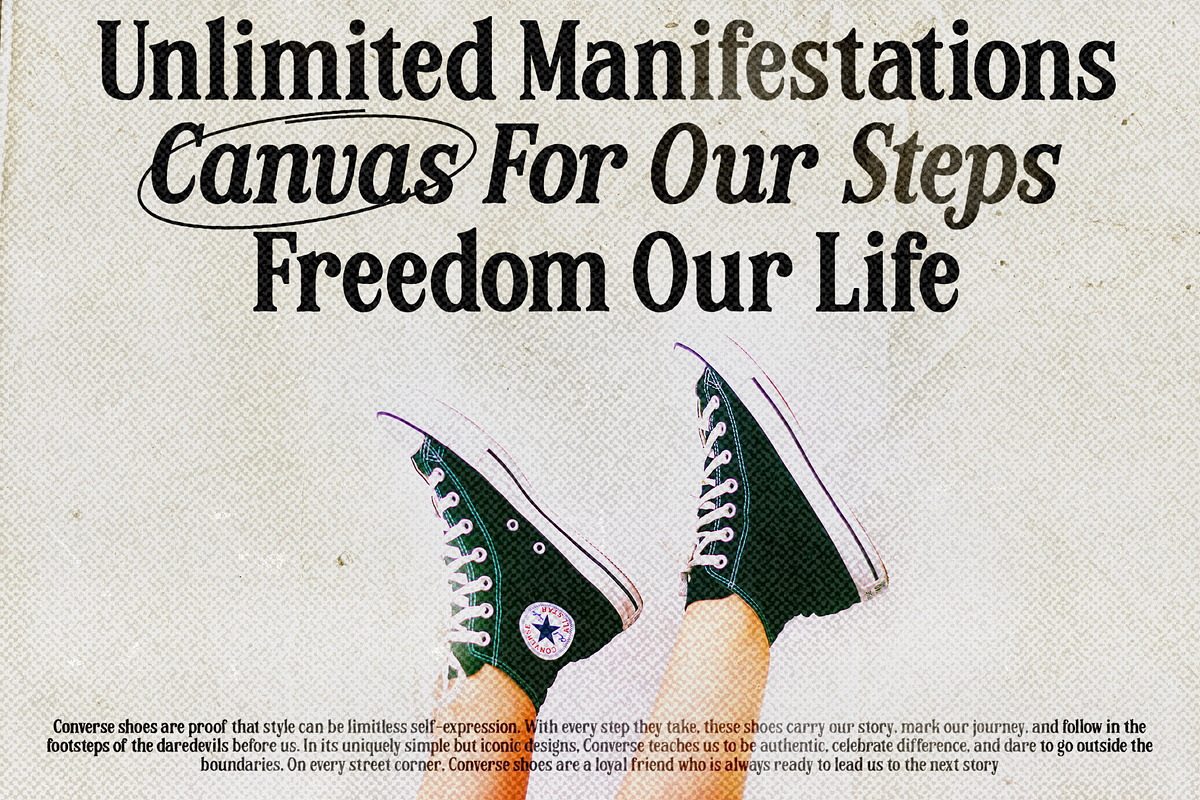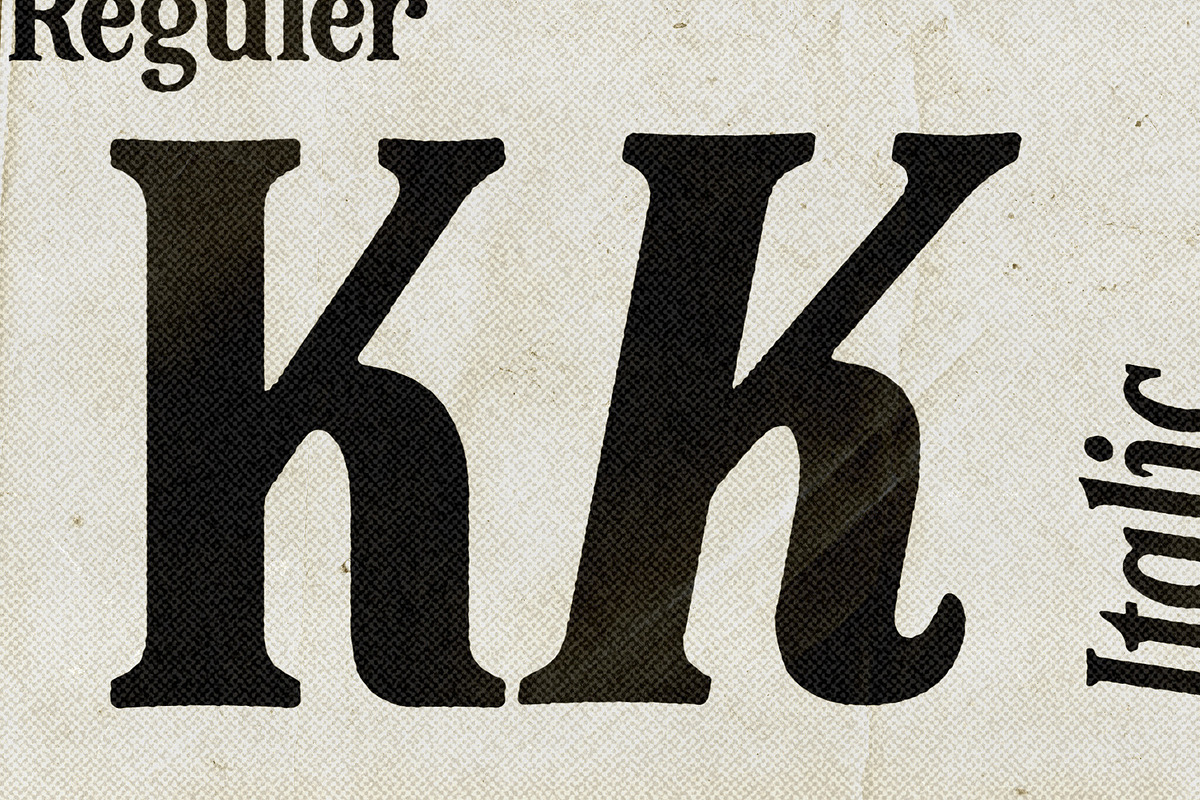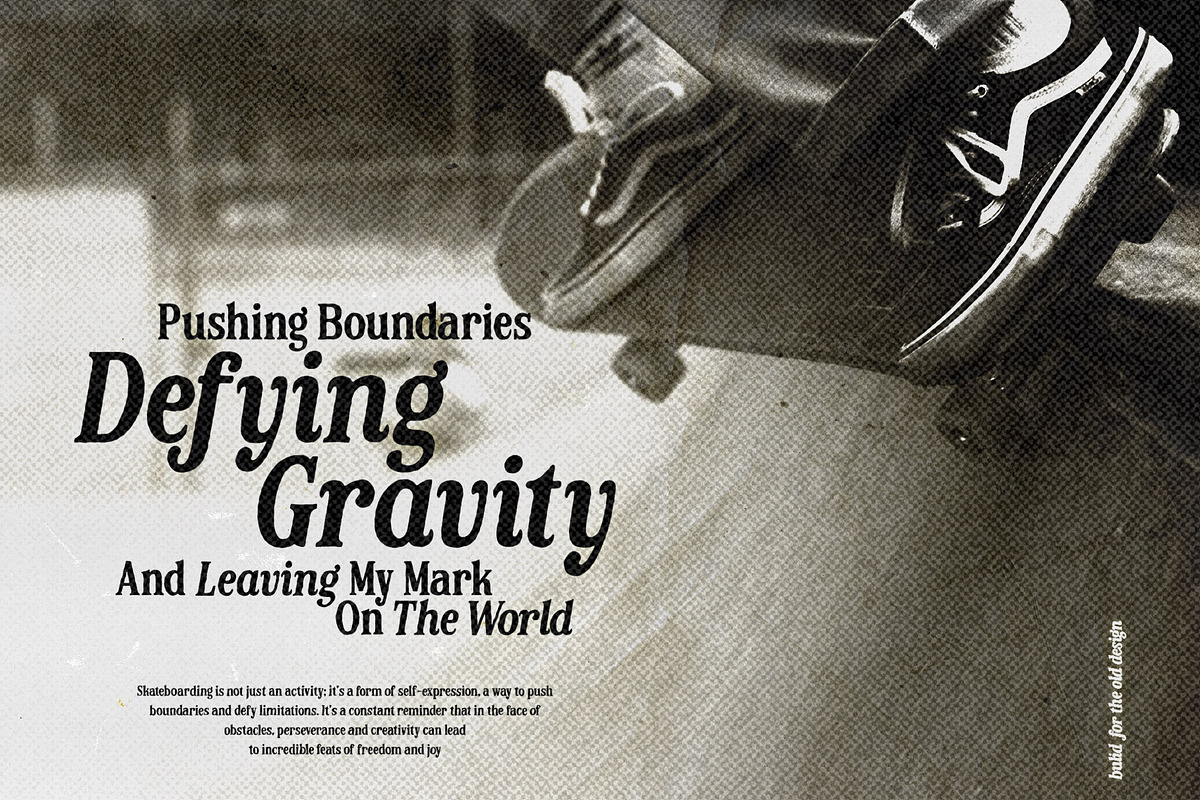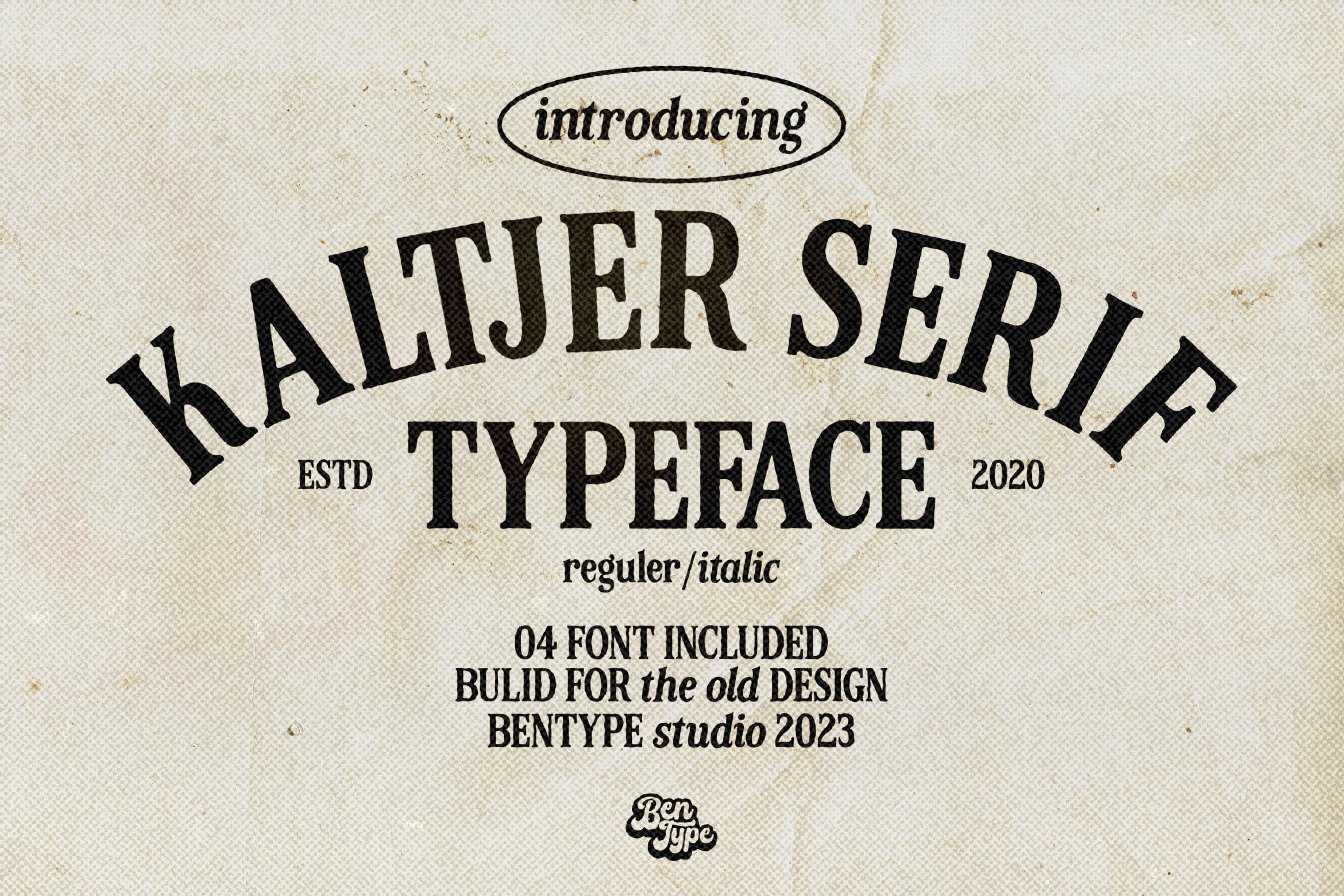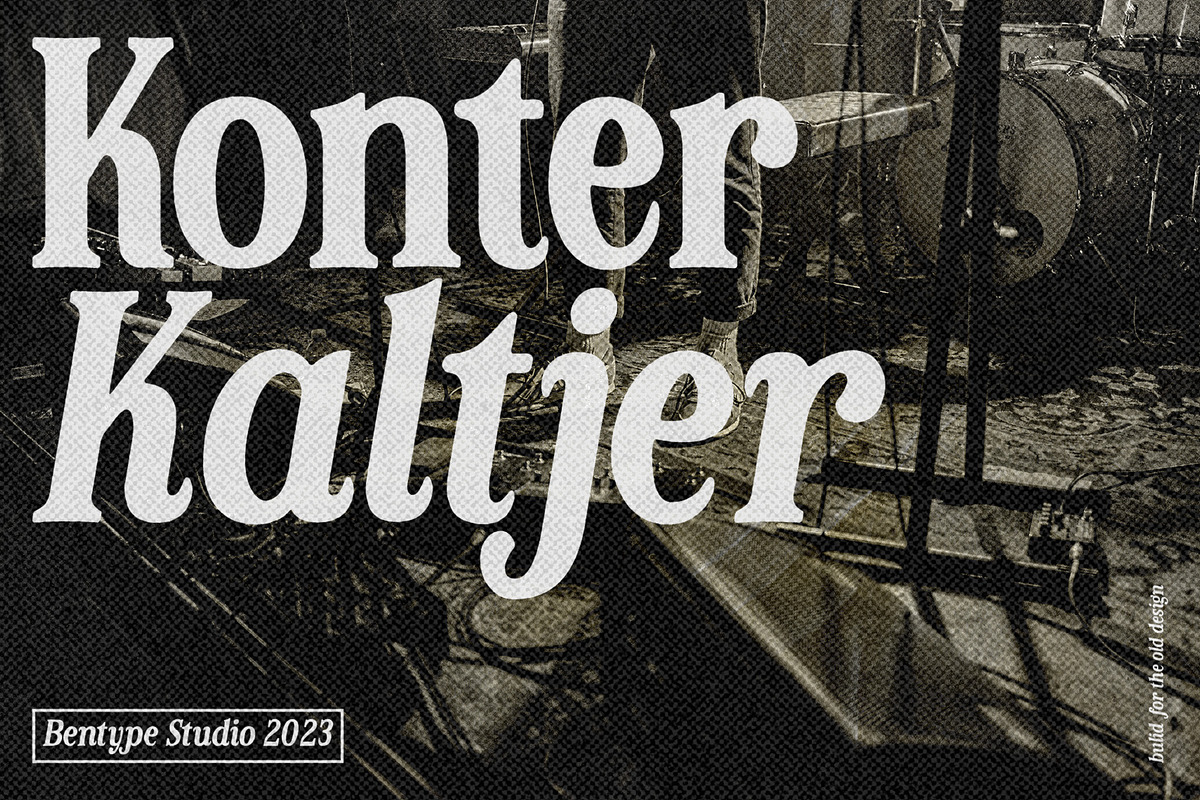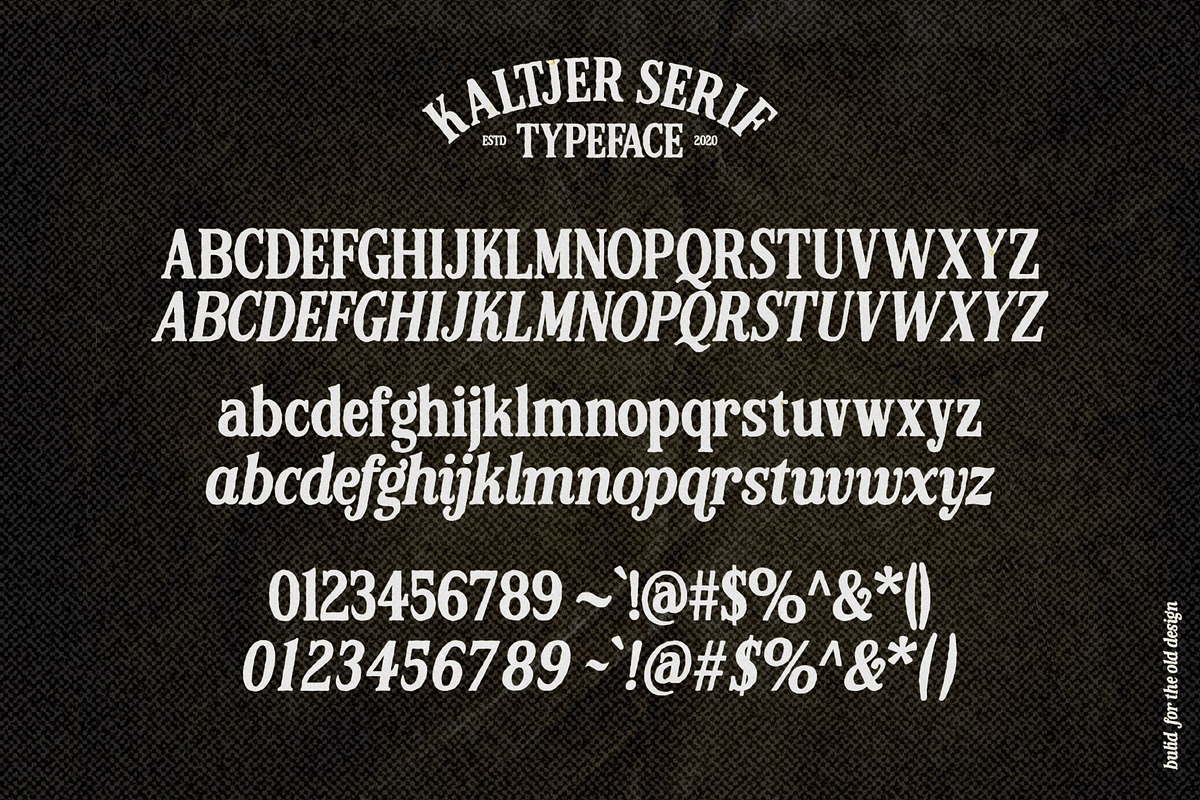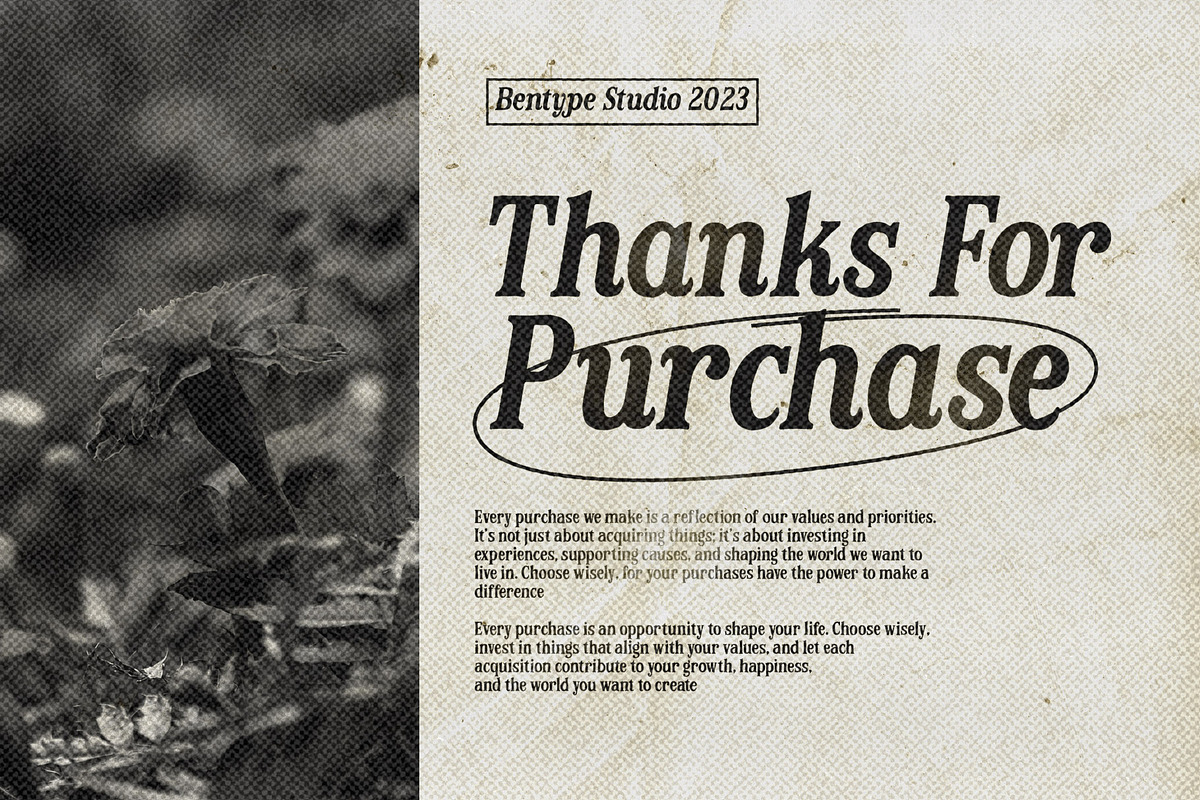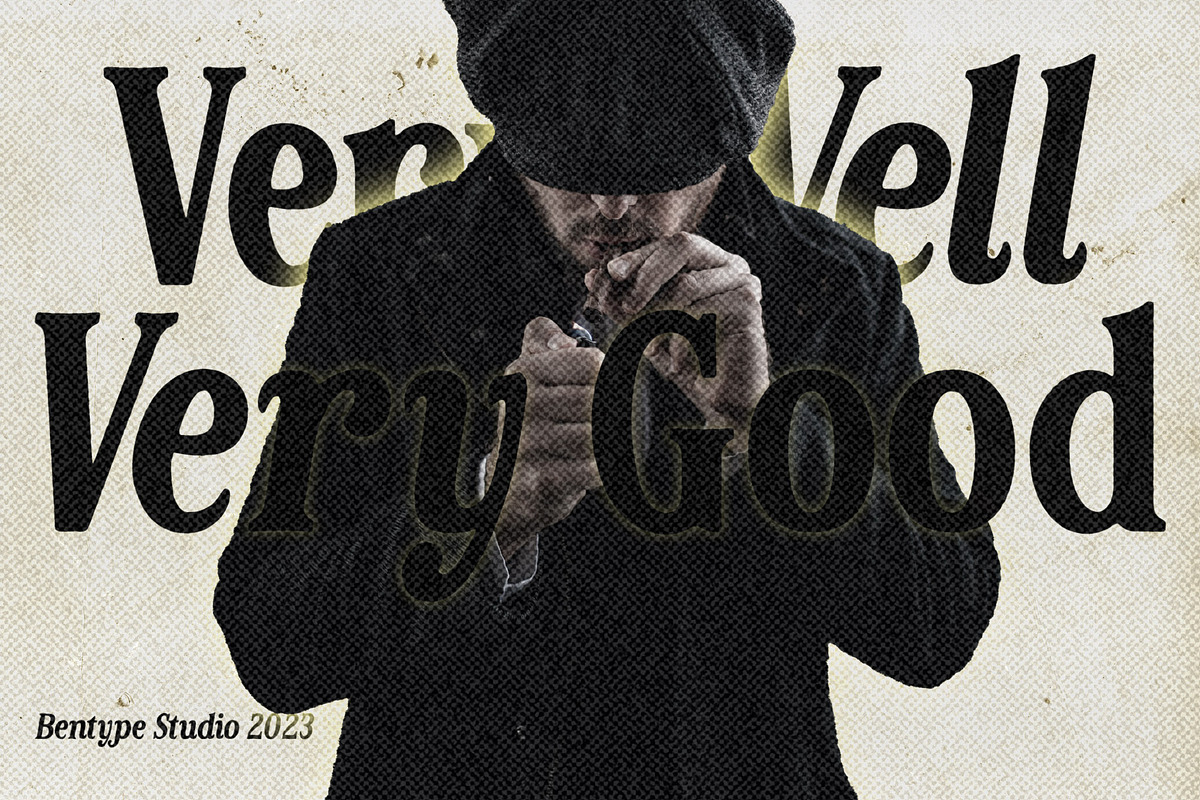
Kaltjer - Serif Font
Kaltjer - Serif Font with a captivating cultural theme, designed to infuse your projects with a touch of refined elegance. This font embodies the essence of cultural heritage, making it perfect for a wide range of creative endeavors that seek to evoke a sense of tradition, sophistication, and artistic expression.
Inspired by the rich tapestry of diverse cultures around the world, our Serif Font boasts distinct and graceful letterforms that exude timeless beauty. Its carefully crafted serifs add a touch of classical charm, while its overall design captures the essence of the past while remaining relevant in contemporary contexts.
With its versatile nature, this font is an ideal choice for various applications. Use it to create visually stunning headlines, titles, invitations, or any text that deserves attention and appreciation. Its inherent character lends itself beautifully to cultural publications, art exhibitions, heritage-inspired branding, and any creative project seeking to celebrate cultural diversity.